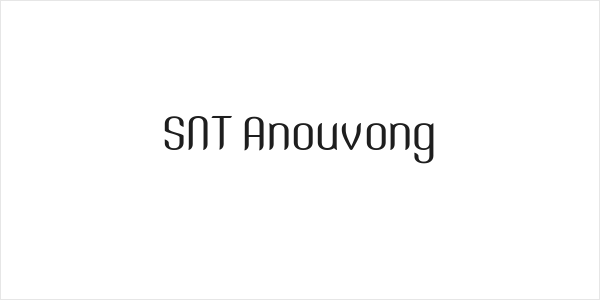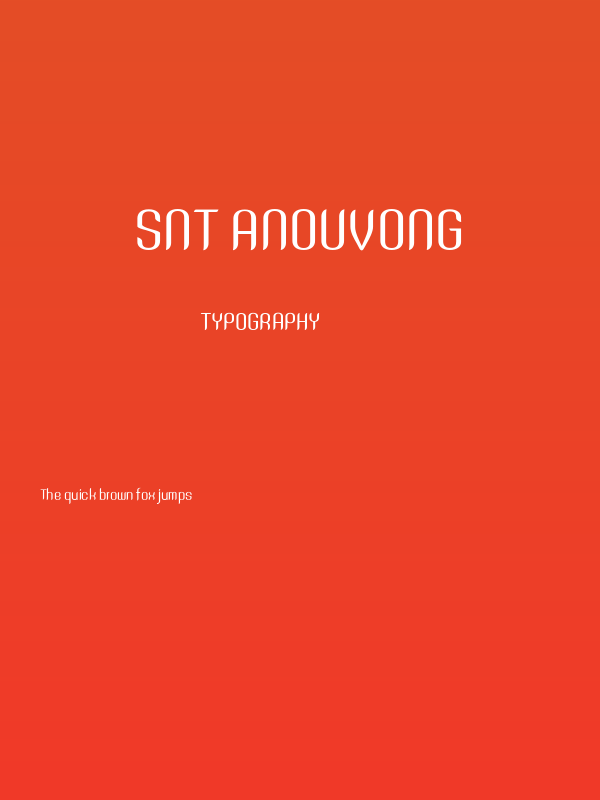
SNT Anouvong Font
SNT Anouvong Description
This font features a modern and sleek design with rounded edges and a geometric structure. The uppercase letters are tall and narrow, while the lowercase letters maintain a consistent height, creating a harmonious balance. The numerals are distinct and easy to read, with a uniform width that complements the overall style. Special characters are well-integrated, maintaining the font's clean and contemporary aesthetic. The font's design is versatile, making it suitable for various applications where a modern and stylish appearance is desired.
| Use Case | Headlines, Logos, Digital media |
| Proposed Projects | Ideal for branding, advertising, and digital media projects that require a contemporary and stylish look. |